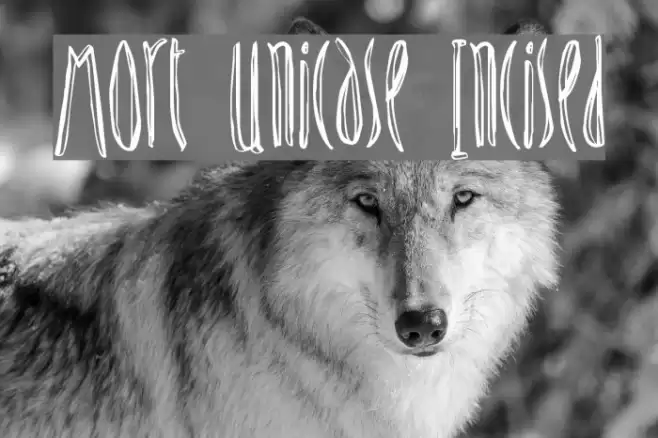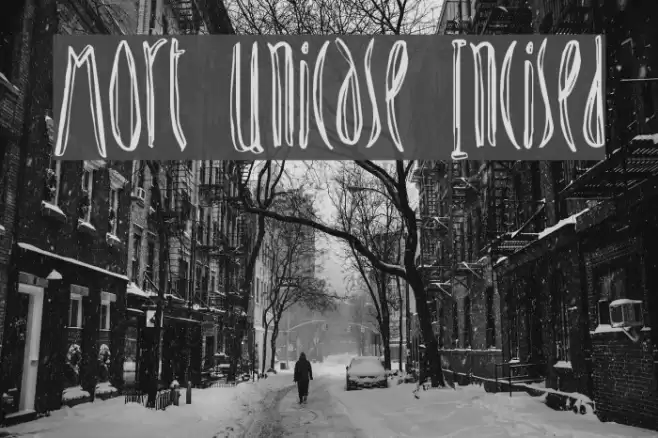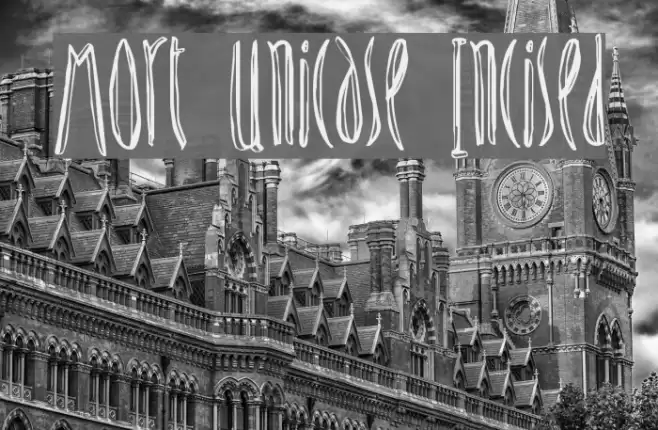
Mort Unicase Incised Font
Mort Unicase Incised Description
This font features a unique and artistic design with elongated, narrow characters that give it a distinct, incised appearance. The uppercase letters are tall and slender, with sharp angles and a sense of movement, while the lowercase letters maintain a similar style but with a slightly more relaxed form. The numerals are consistent with the overall aesthetic, offering a cohesive look across all characters. Special characters are creatively integrated, maintaining the font's artistic flair. The overall design is both modern and decorative, making it suitable for creative projects that require a standout typeface.
An artistic, incised font with elongated, narrow characters and a modern, decorative style from Uncategorized fonts.
- Proposed Projects: Ideal for creative projects such as posters, album covers, and branding materials that require a unique and artistic typeface.
- Overall Style: Modern, Decorative